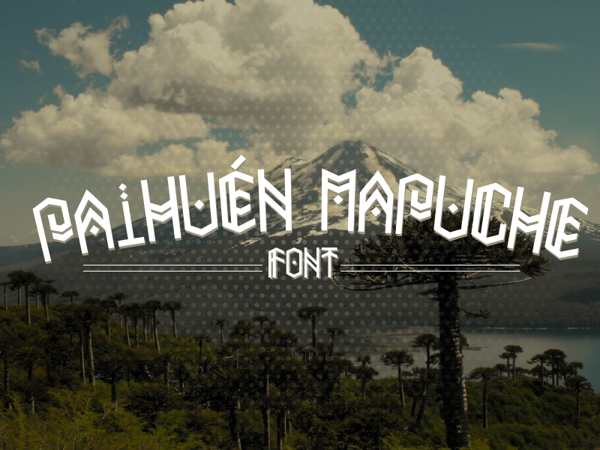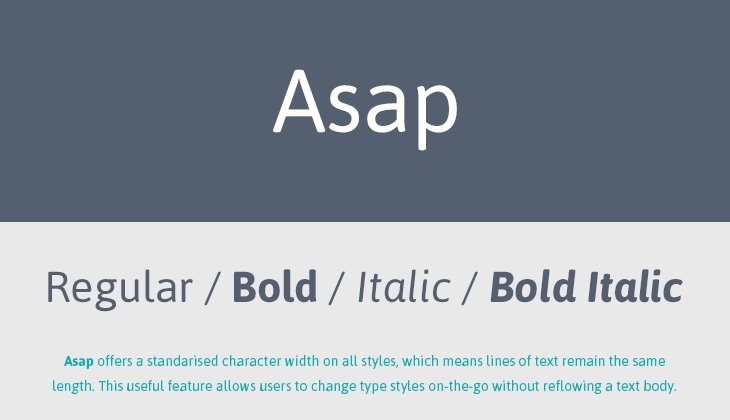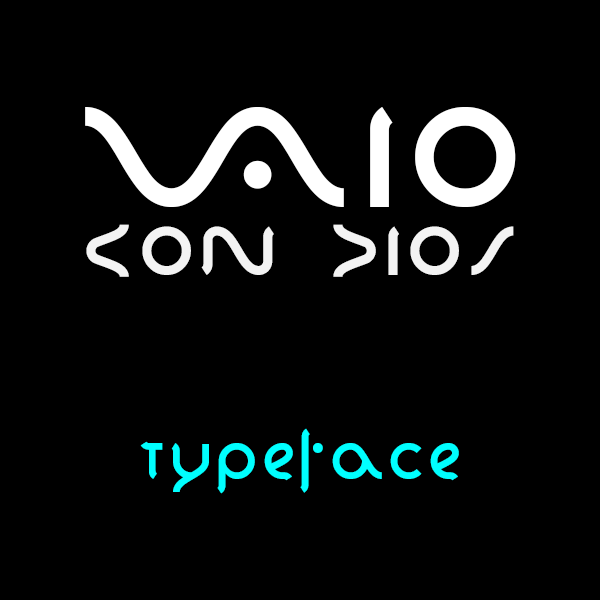
Vaio Con Dios
Author: Zhalgas Kassymkulov
Description: In its own right the font is impressive, but I must note, that there can never be a Vaio font. Since the font for the logo was specifically designed for that purpose.
The VA represent an analog signal as viewed on oscilloscope, which represents the past of Sony, since they first started by making portable radios. While the IO, represents a digital signal represented by the binary code 1 0 which in other words is the future for Sony. Impressive right?
Author: Omnibus Type
Description: “Asap offers a standardized character width on all styles, which means lines of text remain the same length. This useful feature allows users to change type styles on-the-go without reflowing a text body.”
Author: Benjamín Rivera
Description: Paihuen Mapuche illustrates the Mapuche heritage through typography.